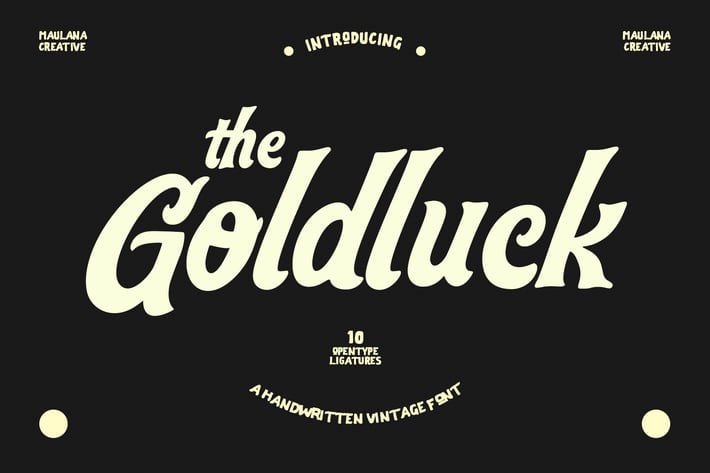
Goldluck Handwritten Rustic Vintage Font
Goldluck is a 70's retro script font. With bold slant stroke, fun character with a bit of ligatures and alternates. To give you an extra creative work. Goldluck font support multilingual more than 100+ language. This font is good for logo design, Social media, Movie Titles, Books Titles, a short text even a long text letter and good for your secondary text font with sans or serif. Make a stunning work with Goldluck font.